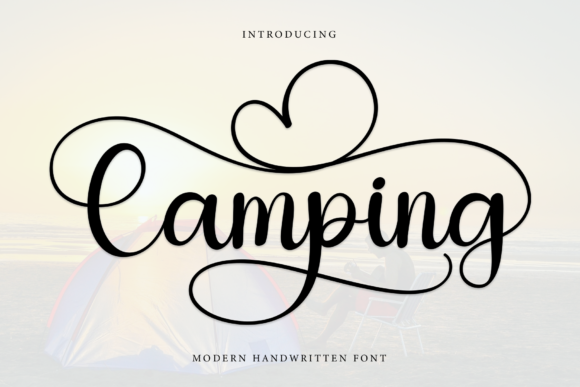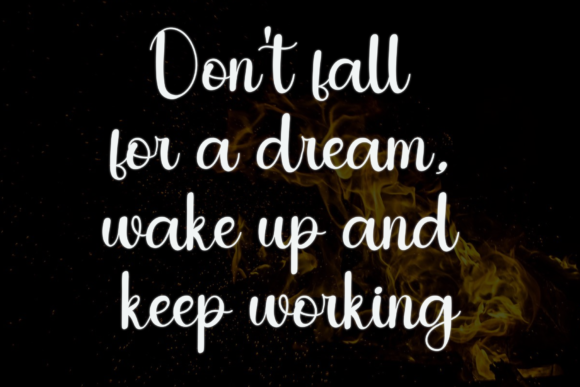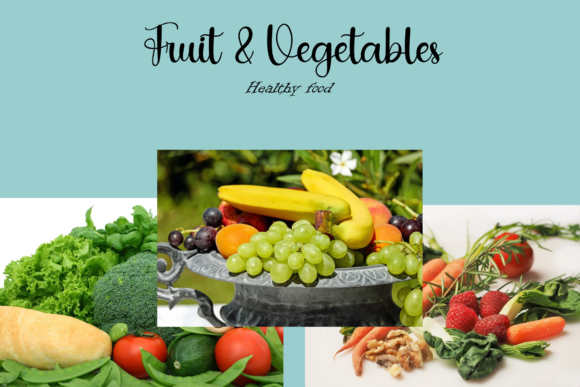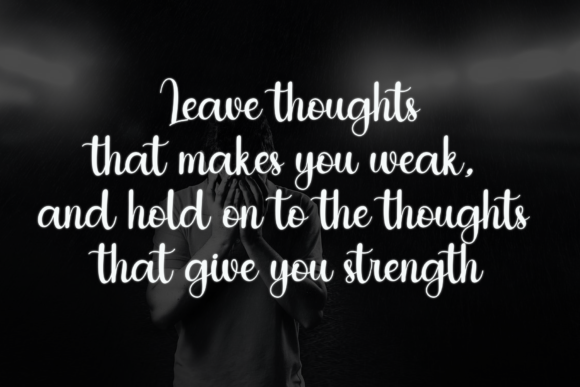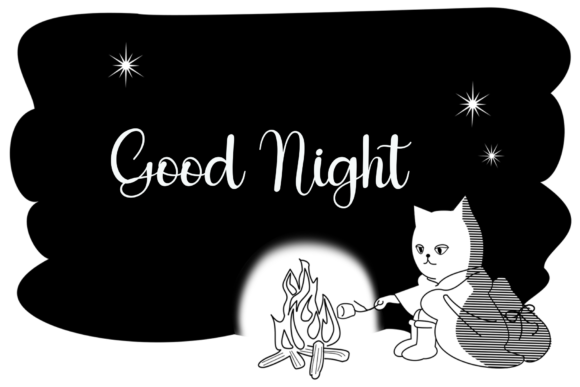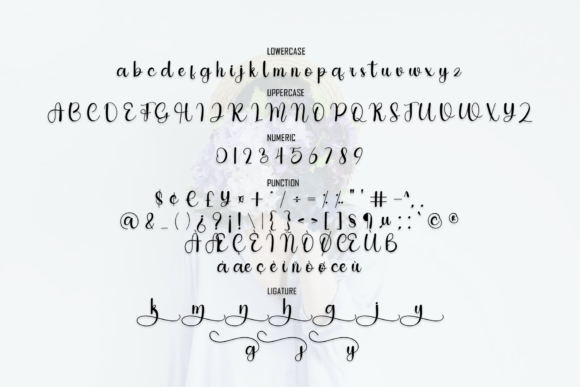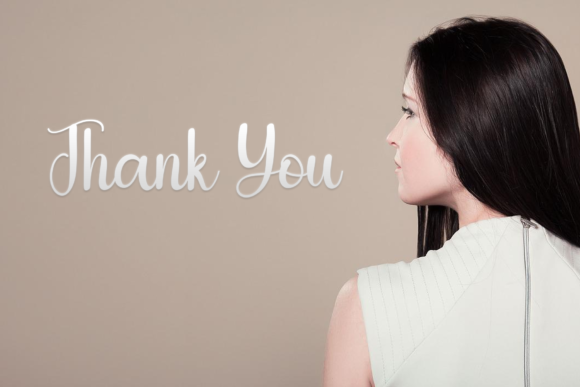
Camping Font
About Camping Font
**Camping Font: Unique Round-Lettered Handwritten Charm**
Introducing *Camping Font*, a unique and round-lettered handwritten typeface crafted with precision to deliver distinctive and desired results. This font is a versatile choice for writing titles, invitations, letters, and a variety of other creative products. With its unique charm, *Camping* adds a playful and eye-catching element to your designs.
The uniqueness of *Camping* lies in its round-lettered handwriting style, giving it a distinct and memorable appearance. Each letter is carefully crafted, contributing to a visual experience that stands out and captures attention. This font is designed to infuse your projects with a playful charm, making it ideal for a variety of applications, including camping-related designs.
Whether you’re creating titles that need a touch of whimsy, crafting invitations with a joyful flair, or adding character to letters and various products, *Camping Font* adapts seamlessly to different design needs. Its versatility allows it to become a valuable asset in your creative toolkit.
As you utilize *Camping* in your projects, you’ll appreciate how it brings a unique and memorable touch to your text. The round-lettered handwritten charm becomes a defining feature, turning ordinary words into visually appealing and engaging elements.
In summary, *Camping Font* is more than just a typeface; it’s a celebration of unique round-lettered handwritten charm. Let it be the choice that adds a playful and distinctive element to your titles, invitations, letters, and a variety of creative products, making each project a joyful and memorable experience, especially for camping-themed designs.